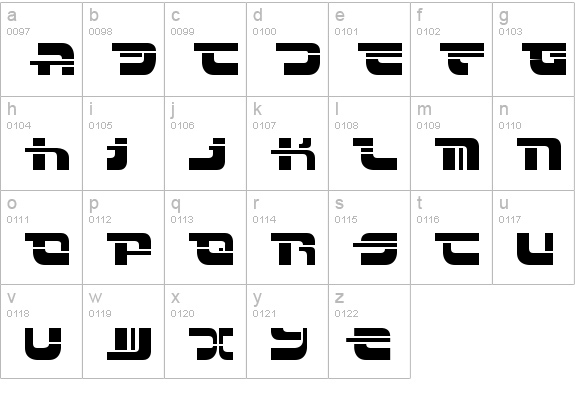
Insert Font Details
Insert font is a stunning and versatile typeface that will bring a touch of elegance to any design project. Whether you're creating a logo, designing a website, or working on a print advertisement, Insert font will instantly elevate your work to the next level. With its clean lines, sleek curves, and modern aesthetic, this font is perfect for conveying a sense of sophistication and professionalism. What sets Insert font apart is not only its impeccable design, but also the fact that it is completely free. That's right, you can download this incredible font at absolutely no cost from FontsMarket.com. We believe that great design should be accessible to everyone, and that's why we're thrilled to offer Insert font as a free resource for designers, artists, and creatives alike. Whether you're a seasoned professional or just starting out, Insert font is incredibly easy to work with. Its legibility and readability make it ideal for both headings and body text, ensuring that your message is effectively communicated to your audience. The wide range of weights and styles available also allows for endless creative possibilities, giving you the flexibility to experiment and find the perfect fit for your project. Take advantage of this amazing opportunity and download Insert font today. With its timeless elegance, exceptional quality, and the fact that it's freely available to download at FontsMarket.com, there's no reason not to incorporate this beautiful typeface into your design arsenal. Don't miss out on this chance to enhance your designs and captivate your audience with the striking beauty of Insert font.